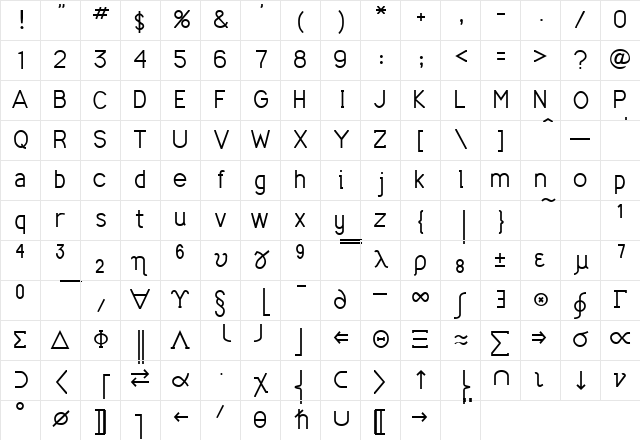
Math Major
Style: Major
Design Context for Math
Math is a composed and adaptable typeface that performs quietly and consistently across a wide range of design contexts.